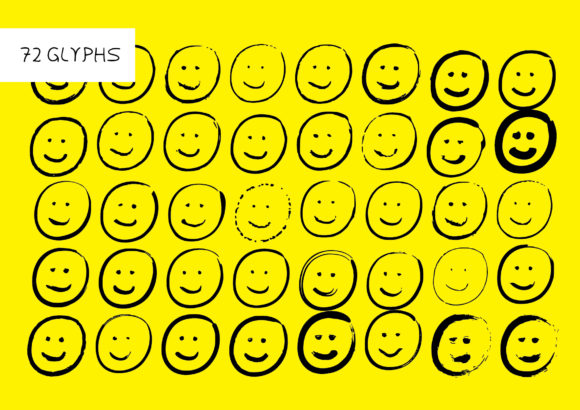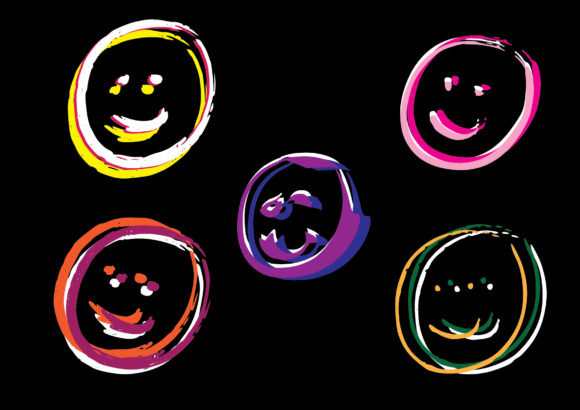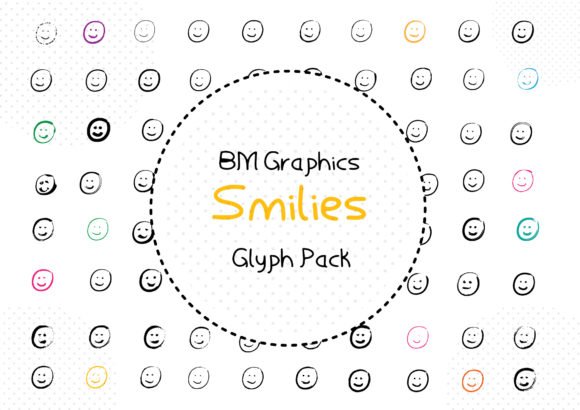
Introduction to BM Graphics – Smilies Font
Smilies is a stunning dingbats font that combines 72 Glyphs.
Fall in love with its positively charming look & feel .